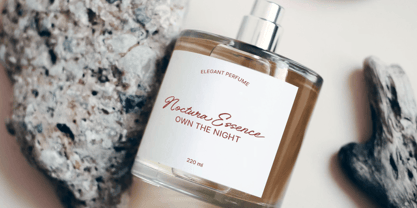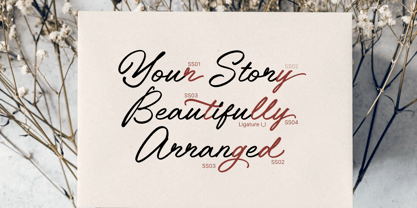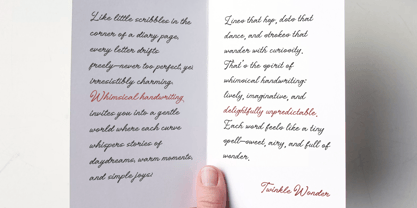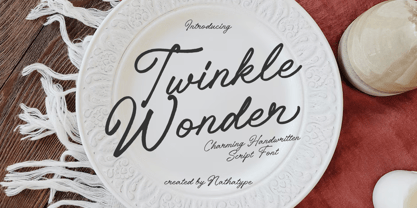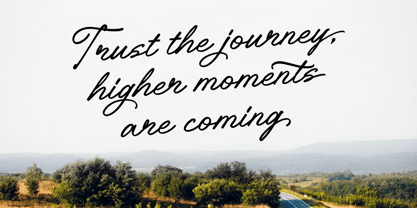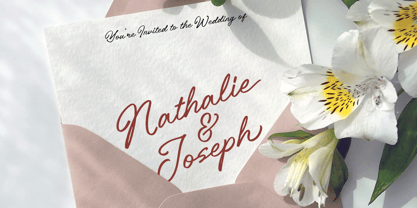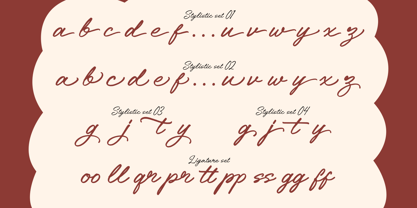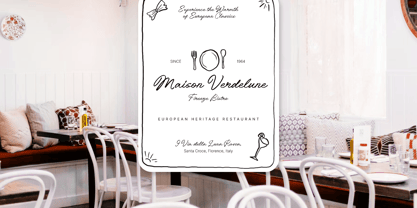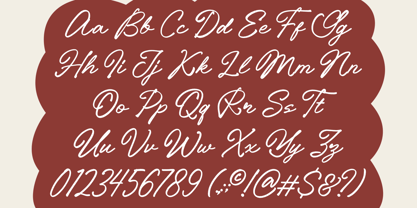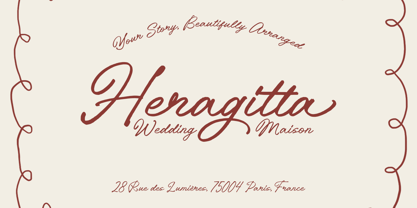
Twinkle Wonder
Die Schriftfamilie Twinkle Wonder wurde von Donis Miftahudin entworfen und von Nathatype veröffentlicht. Twinkle Wonder enthält 1 Stile. Mehr über diese Familie
Twinkle Wonder is a charming script font. Inspired by natural cursive writing, Twinkle Wonder shows flowing strokes and carefully spaced connections that create a seamless rhythm across words and phrases. The font’s consistent and neat letter proportions deliver a smooth, balanced flow that feels both personal and professional. Twinkle Wonder is perfect for designers who want a handwritten look that remains refined, readable, and visually harmonious. In addition, enjoy the features here. Features: Ligatures Stylistic Sets Multilingual Supports PUA Encoded Numerals and Punctuations Twinkle Wonder fits in logos, invitations, quotes, branding, posters, and many more designs. Find out more ways to use this font by taking a look at the font preview. Thanks for purchasing our fonts. Hopefully, you have a great time using our font. Feel free to contact us anytime for further information or when you have trouble with the font. Thanks a lot and happy designing.